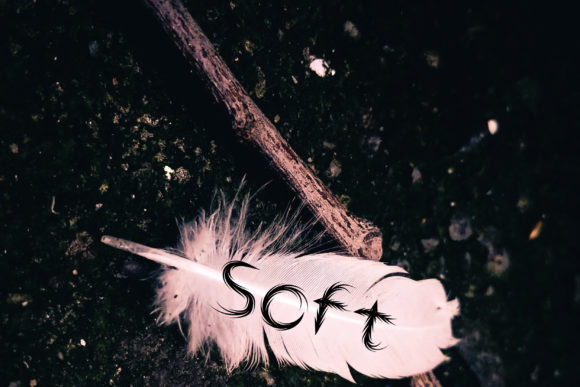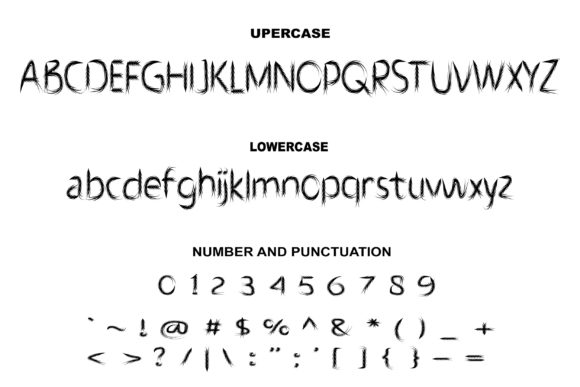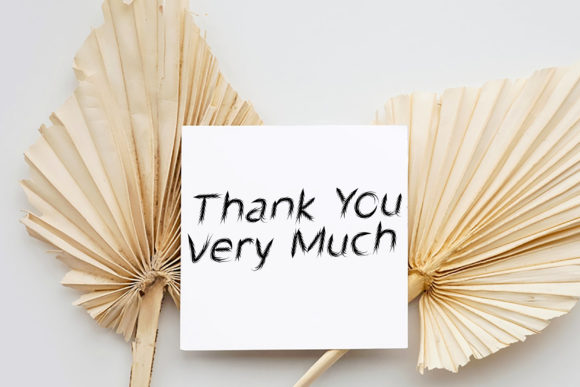
The Elegance of Feathers Font: A Designer’s Delight
I still remember the time I was working on a project for a luxury brand, and I was struggling to find the perfect font to match their sophisticated aesthetic. The client wanted something that exuded elegance and refinement, but everything I tried seemed to fall flat. That’s when I stumbled upon Feathers Font, and it was love at first sight! 💕
Feathers is a beautiful and delicate decorative font that will look stunningly beautiful on more exquisite projects that require an elegant, sophisticated touch. In this article, I’ll share my experience with Feathers Font, its features, and how to make the most of it in your designs.
An Honest Review of Feathers Font
- ✨ Delicate and elegant design, perfect for luxury brands and high-end projects
- ✅ Highly versatile, works well in various design contexts, from invitations to packaging
- 💫 Beautifully crafted, with intricate details that add a touch of sophistication
- 🎉 Easy to read, even in smaller sizes, making it perfect for body text
While Feathers Font is an excellent choice for many projects, there are a few things to keep in mind:
- ⚠️ May not be the best choice for very bold or attention-grabbing designs, as it’s more delicate and elegant
- 🤔 Some characters may not work well in all languages or scripts, so it’s essential to test the font thoroughly
- Experiment with OpenType features, such as ligatures and stylistic alternates, to add more flair to your text
The Backstory of Feathers Font
Feathers Font was designed by a talented typographer who wanted to create a font that would evoke the feeling of luxury and sophistication. Inspired by the intricate details of feathers, the designer crafted a font that’s both delicate and elegant. The result is a beautiful, decorative font that’s perfect for high-end projects.
| Font Name | Feathers Font |
| Author | ABBAsalam |
Q: What is Feathers Font?
A: Feathers Font is a beautiful and delicate decorative font, perfect for luxury brands and high-end projects.
Q: Is Feathers Font suitable for body text?
A: Yes, Feathers Font is easy to read, even in smaller sizes, making it perfect for body text.